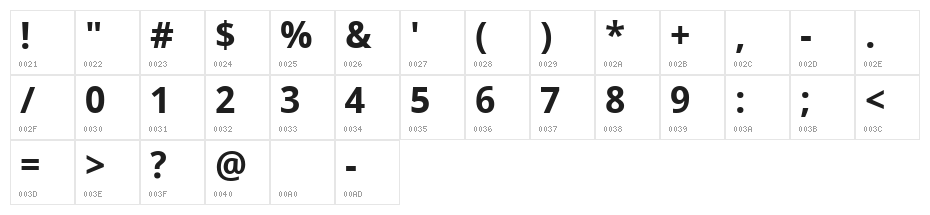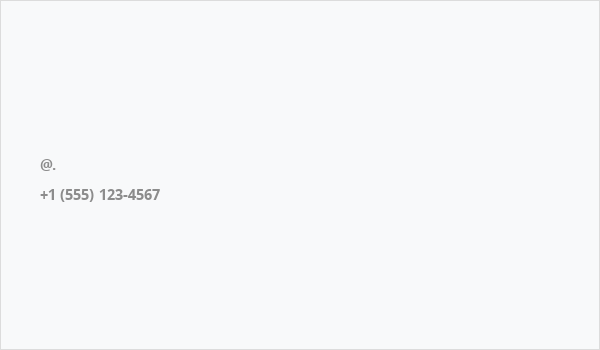
Phetsarath Bold Font
Phetsarath Bold Description
This font is a bold, sans-serif typeface that features clean and modern lines. The characters are well-defined with a uniform stroke width, providing a strong and impactful appearance. The uppercase letters are slightly taller than the lowercase, maintaining a consistent and balanced look. The numbers and special characters are clear and easy to read, making them suitable for various applications. The overall design is straightforward, with no decorative elements, emphasizing functionality and readability.
| Use Case | Headlines, Logos, Signage |
| Proposed Projects | Ideal for branding, signage, headlines, and digital content where clarity and impact are essential. |